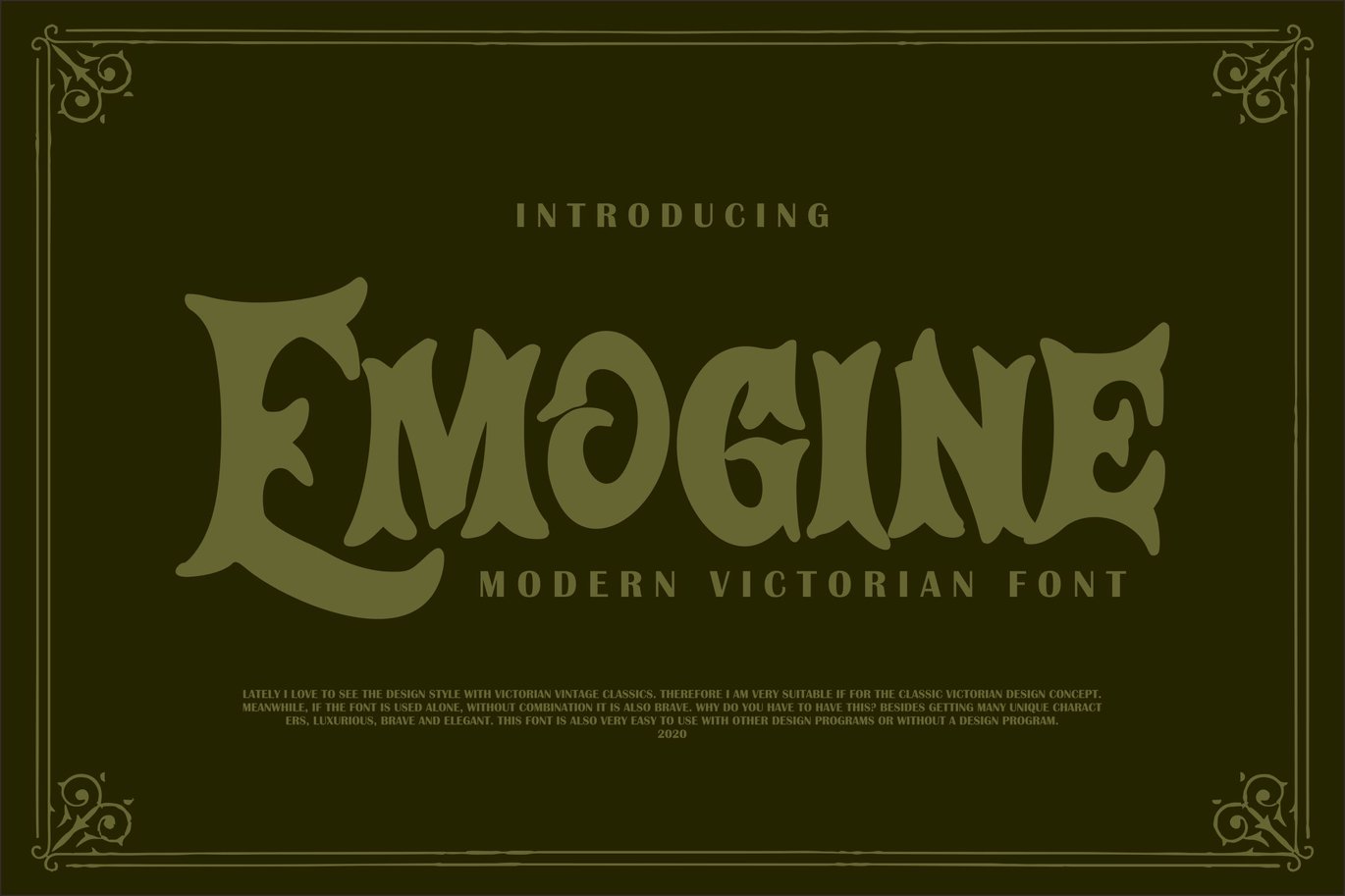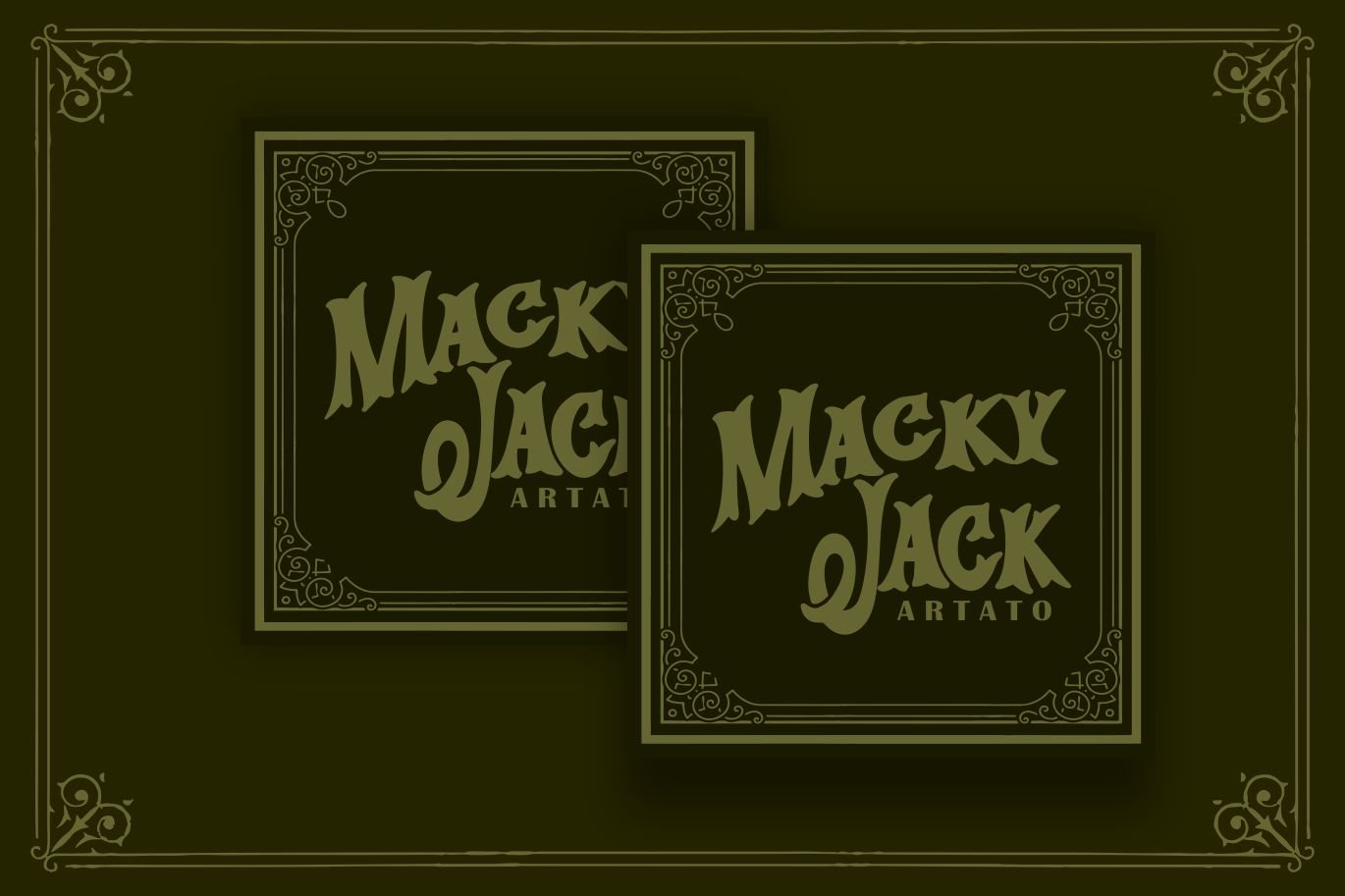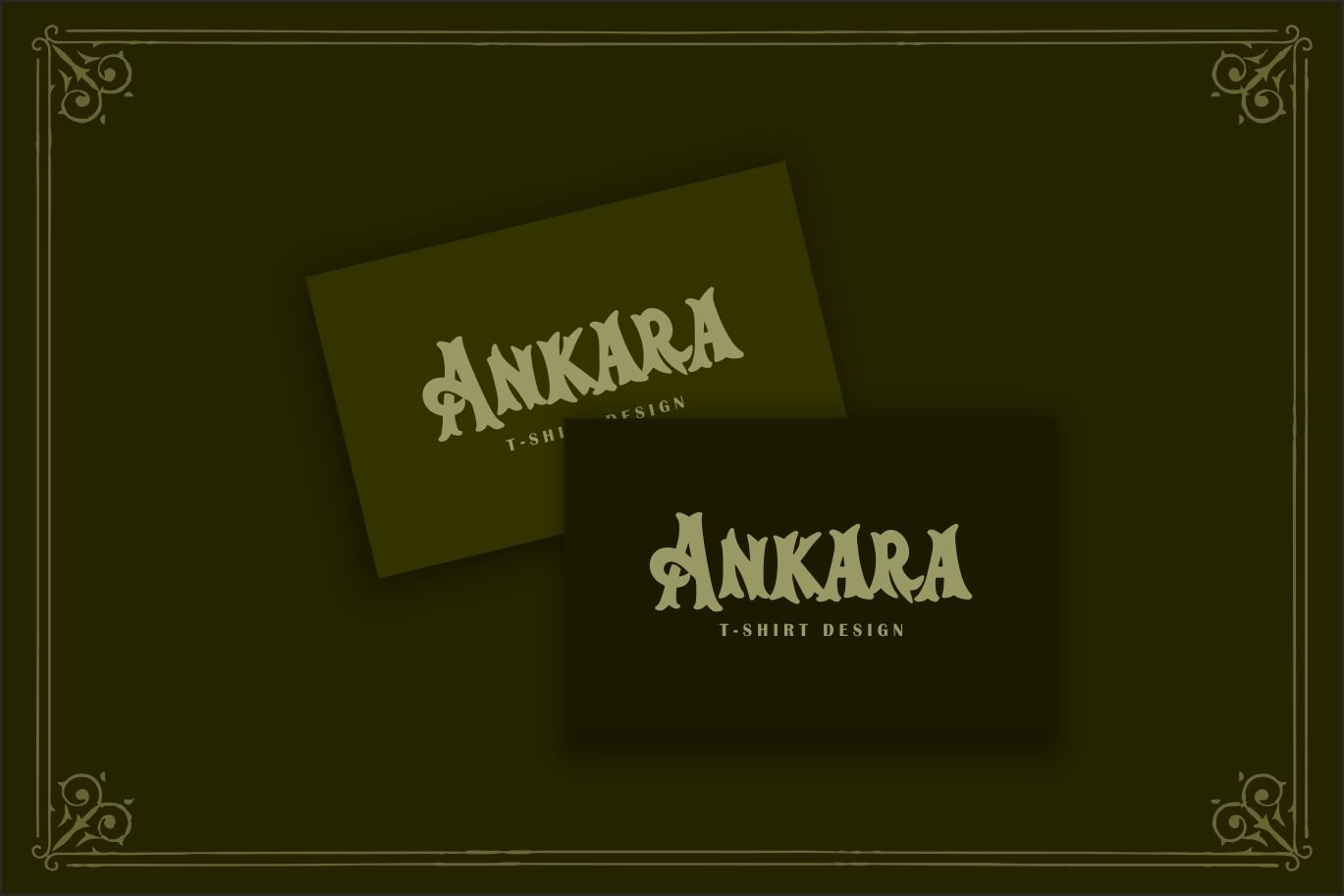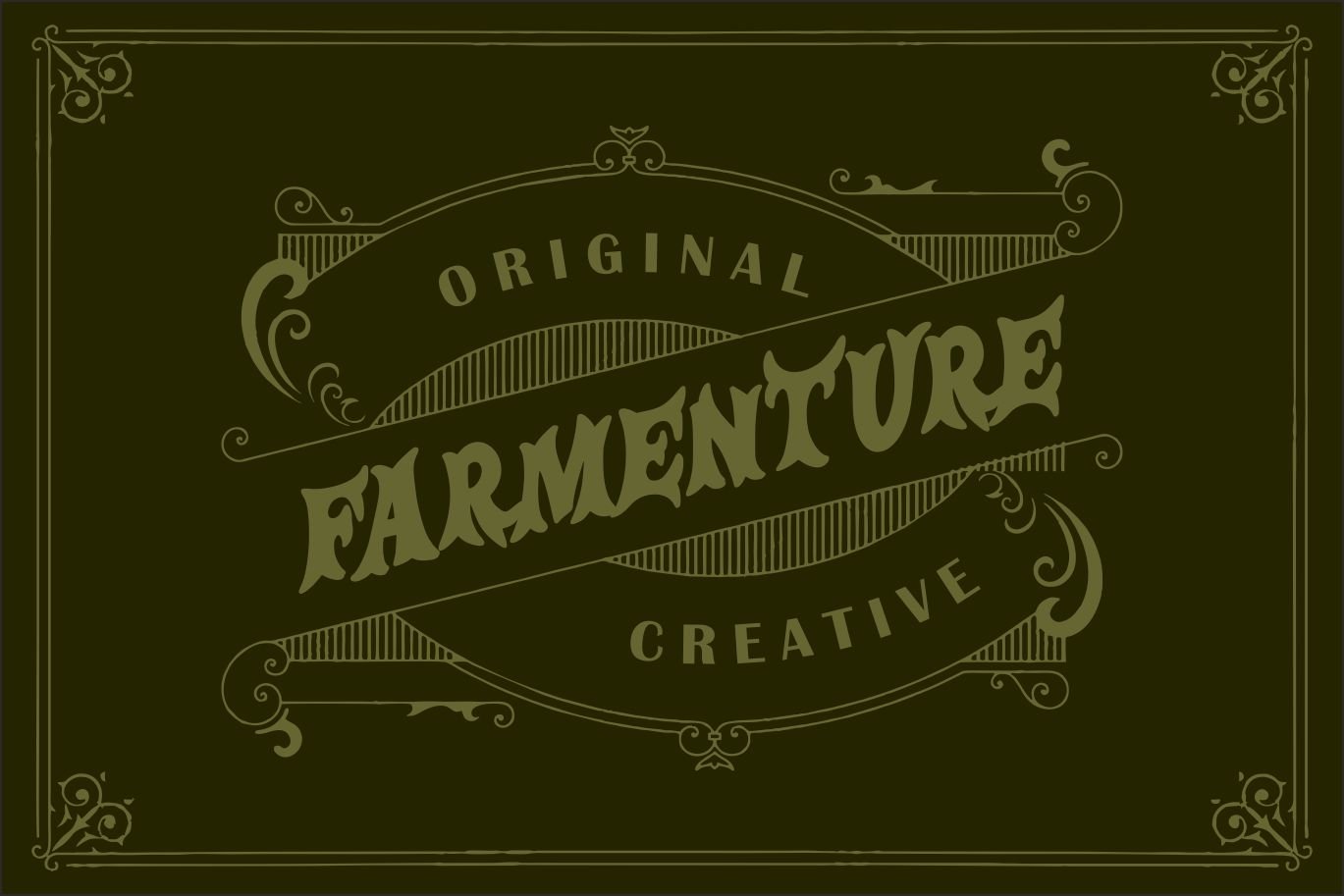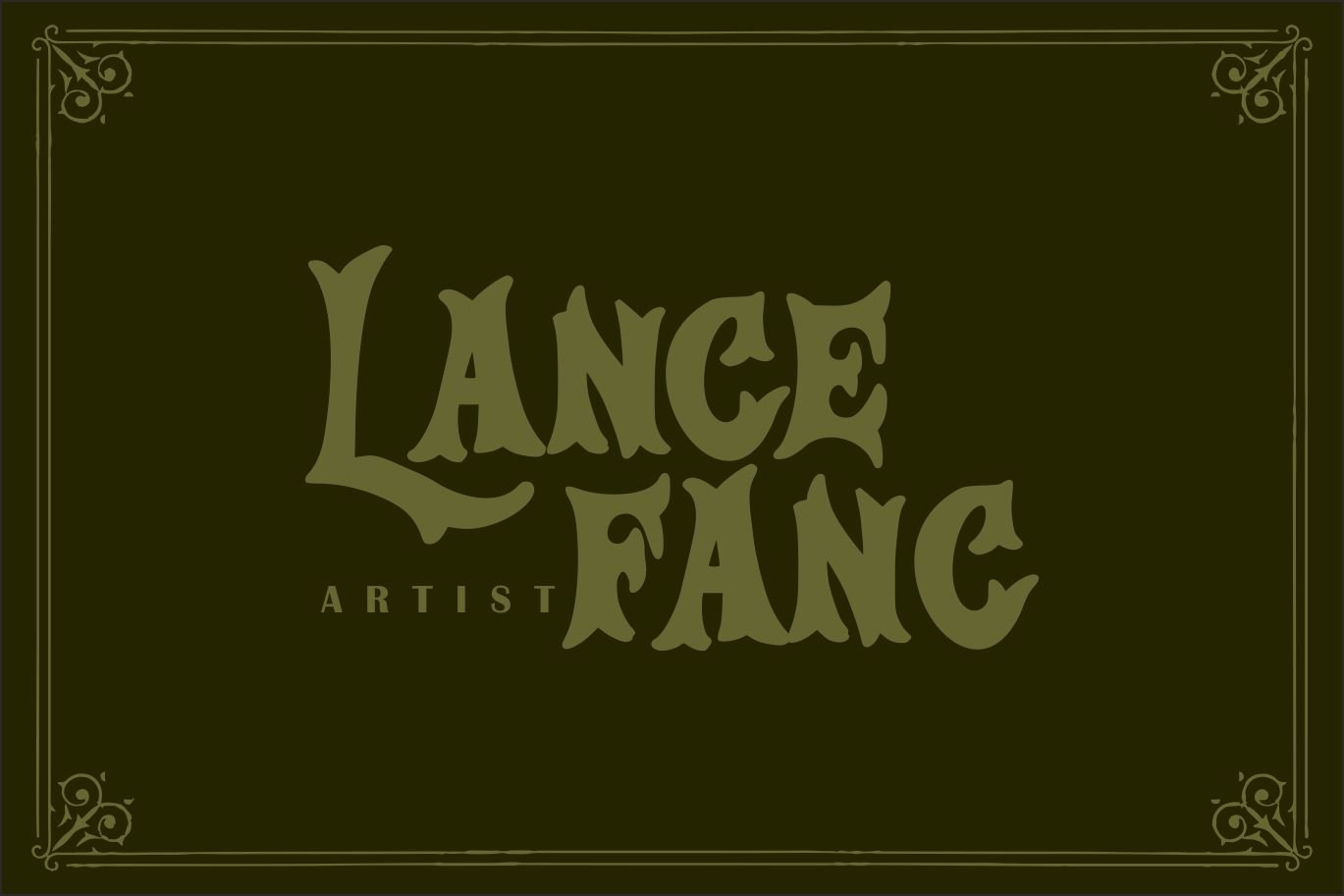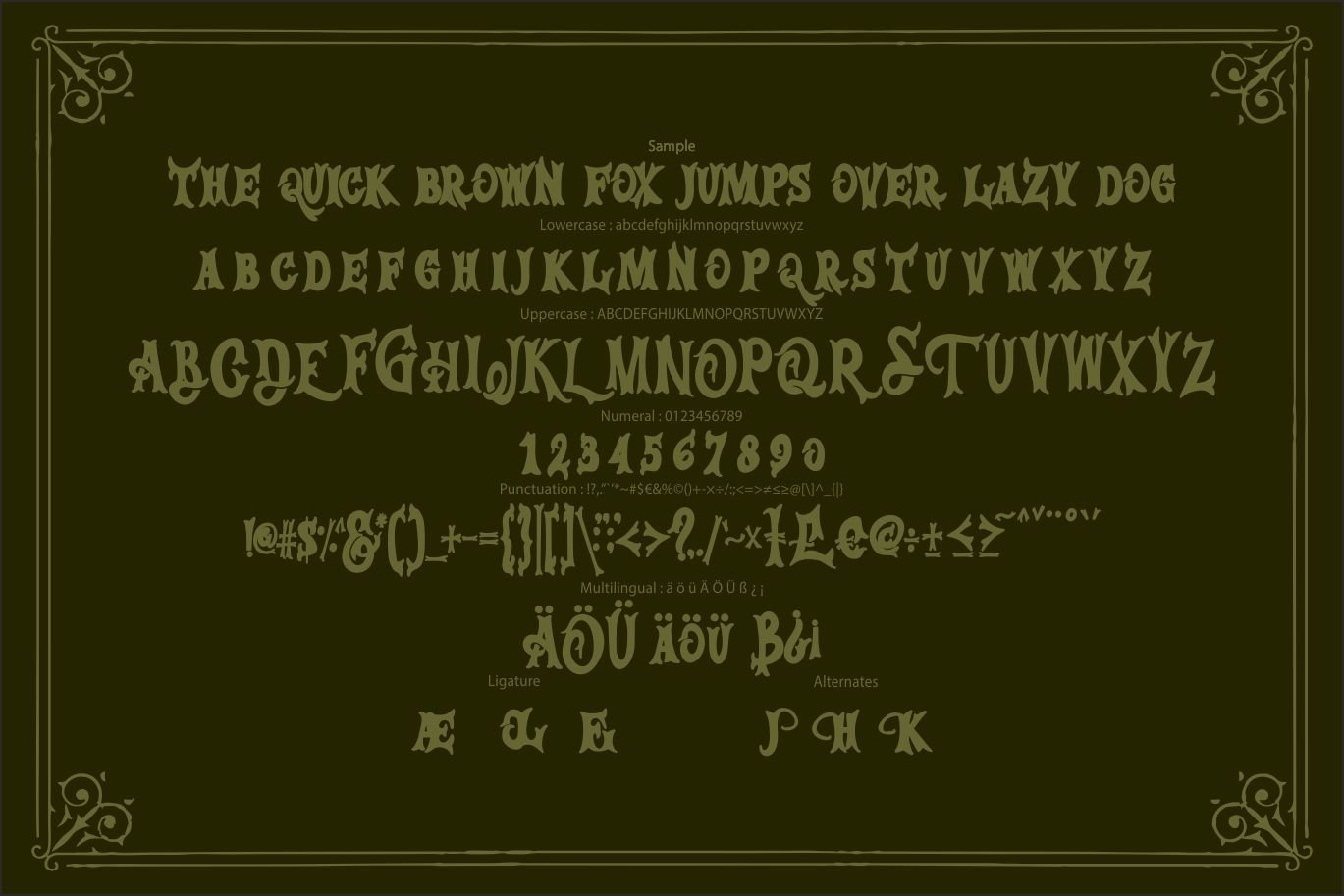
Emogine | Modern Victorian Font
Emogine | Modern Victorian Font with a calligraphy style, So beautiful on invitation like greeting cards, branding materials, business cards, quotes, posters, and more!